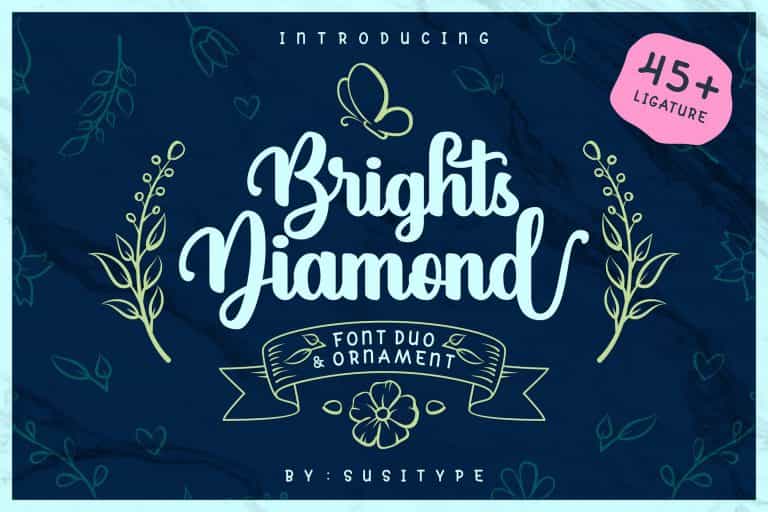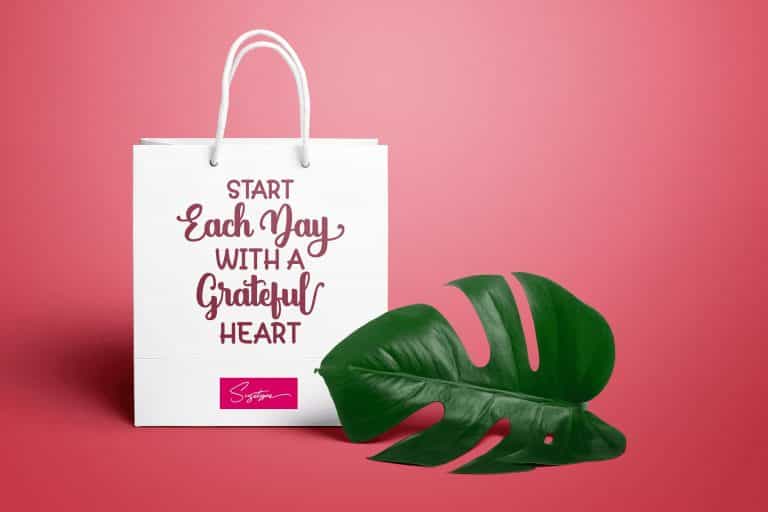
Brights Diamond Script Font
Introducing Brights Font. Brights Diamond – a font duo that contains both the feminine bold script calligraphy and monoline sans. AND ALSO WITH THE ADDITIONAL FLORAL ORNAMENT. Still not enough?Beside this, the package also contains 45+ LIGATURE . Of course we are all in love with ligature, right?We also offer you some other characters to make the game more fun.